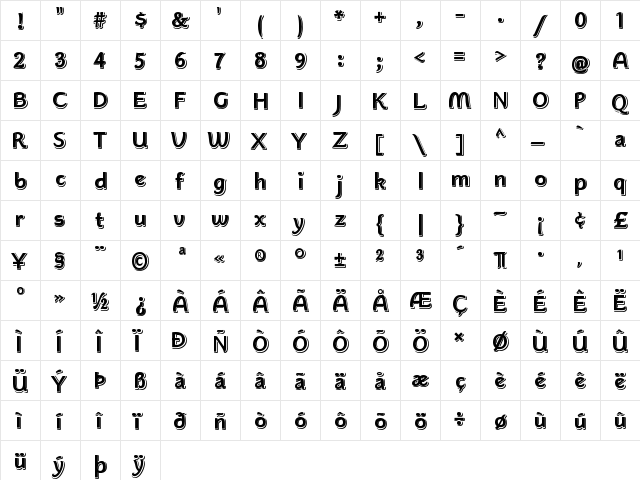
Kwokwi Regular Font Preview
Kwokwi Regular
Kwokwi Regular Font Details
Design Context for Kwokwi Typeface
Kwokwi is a composed and adaptable typeface that performs quietly and consistently across a wide range of design contexts.